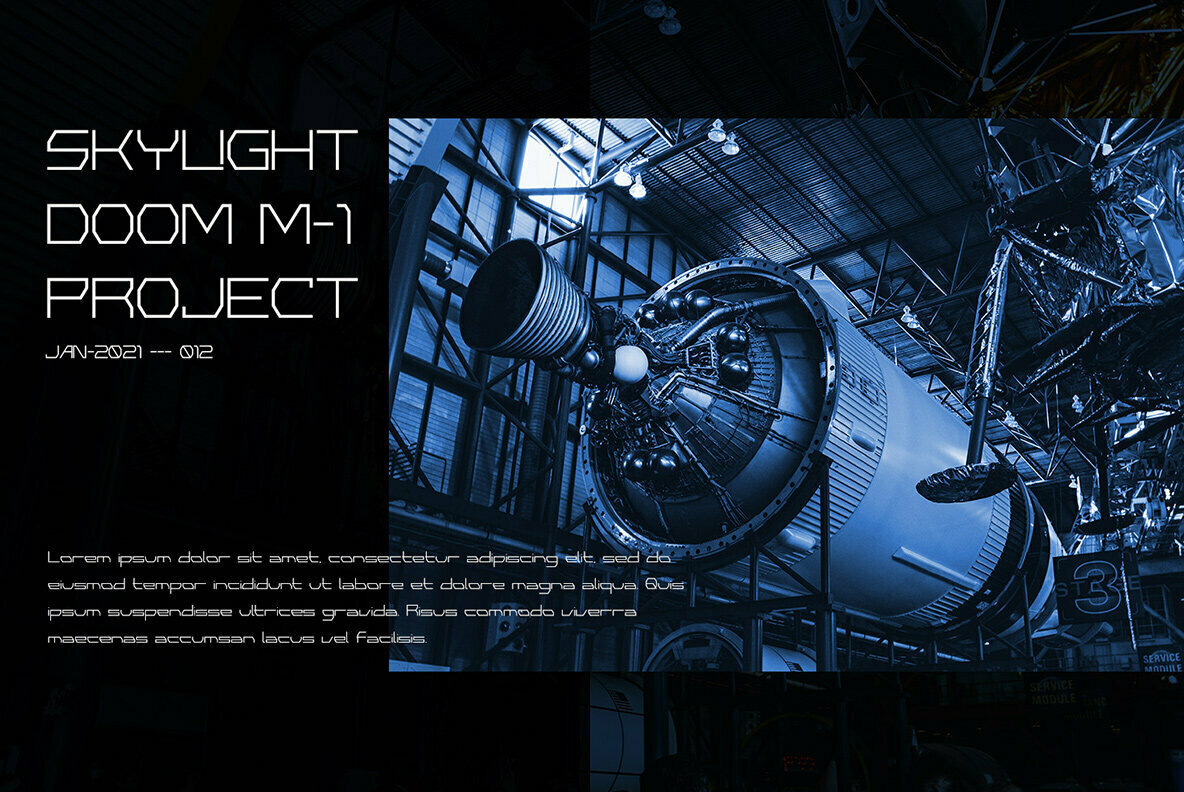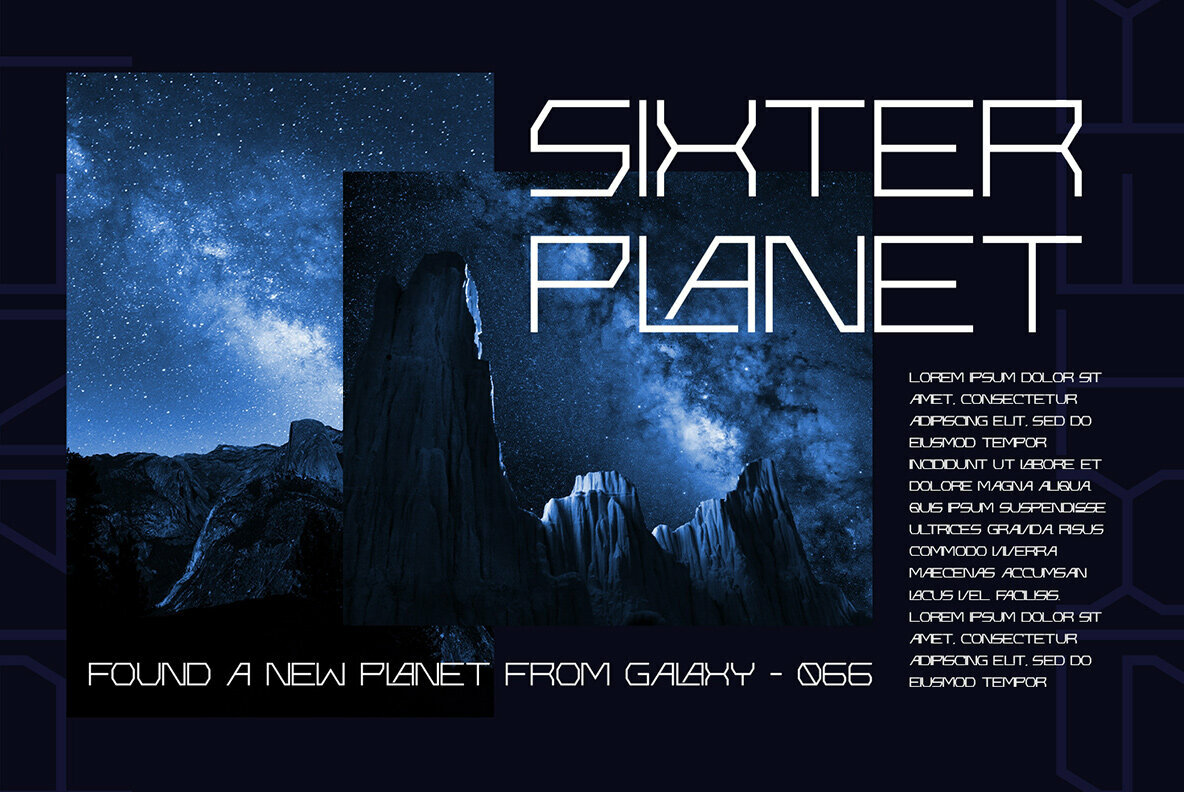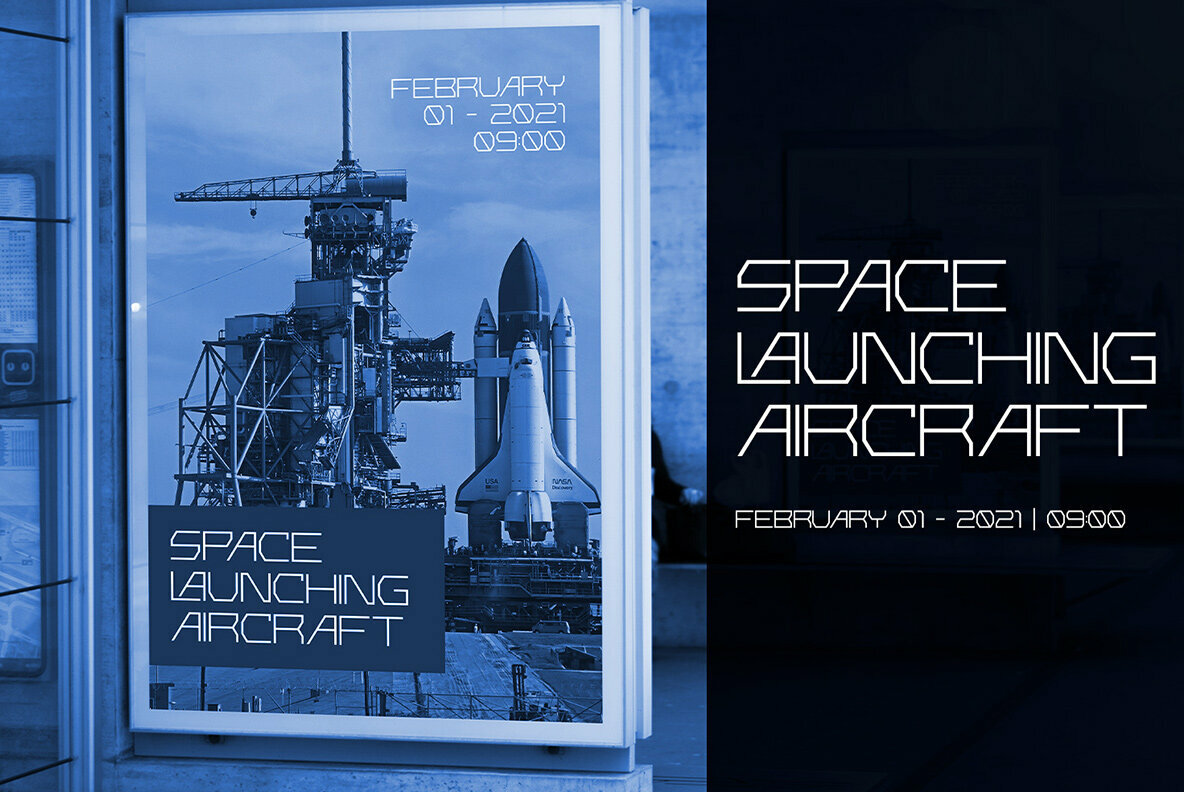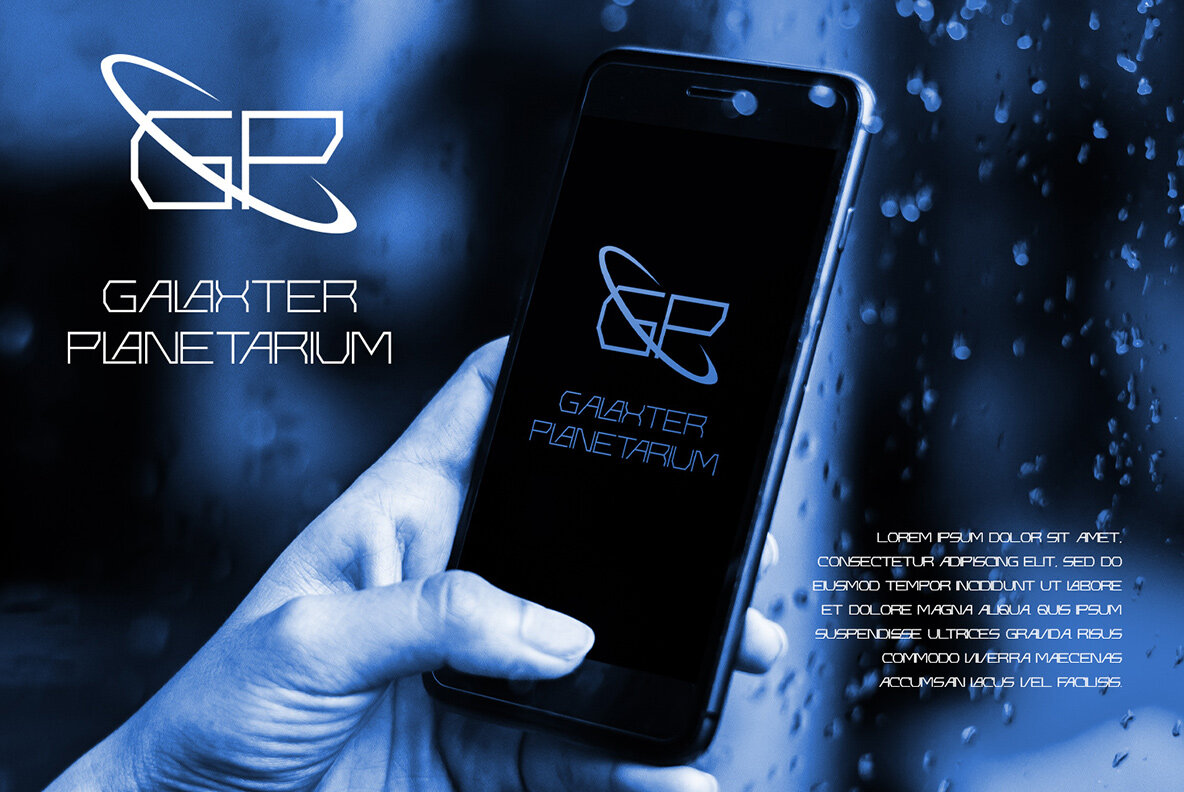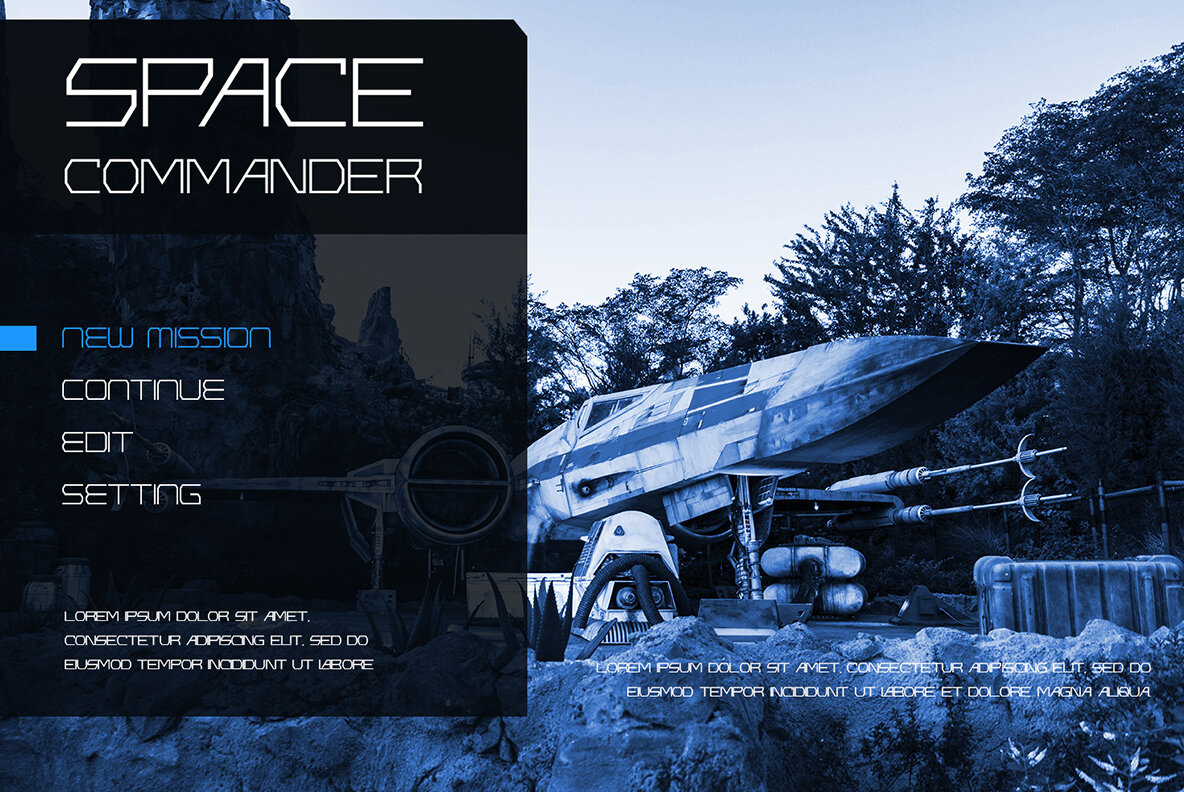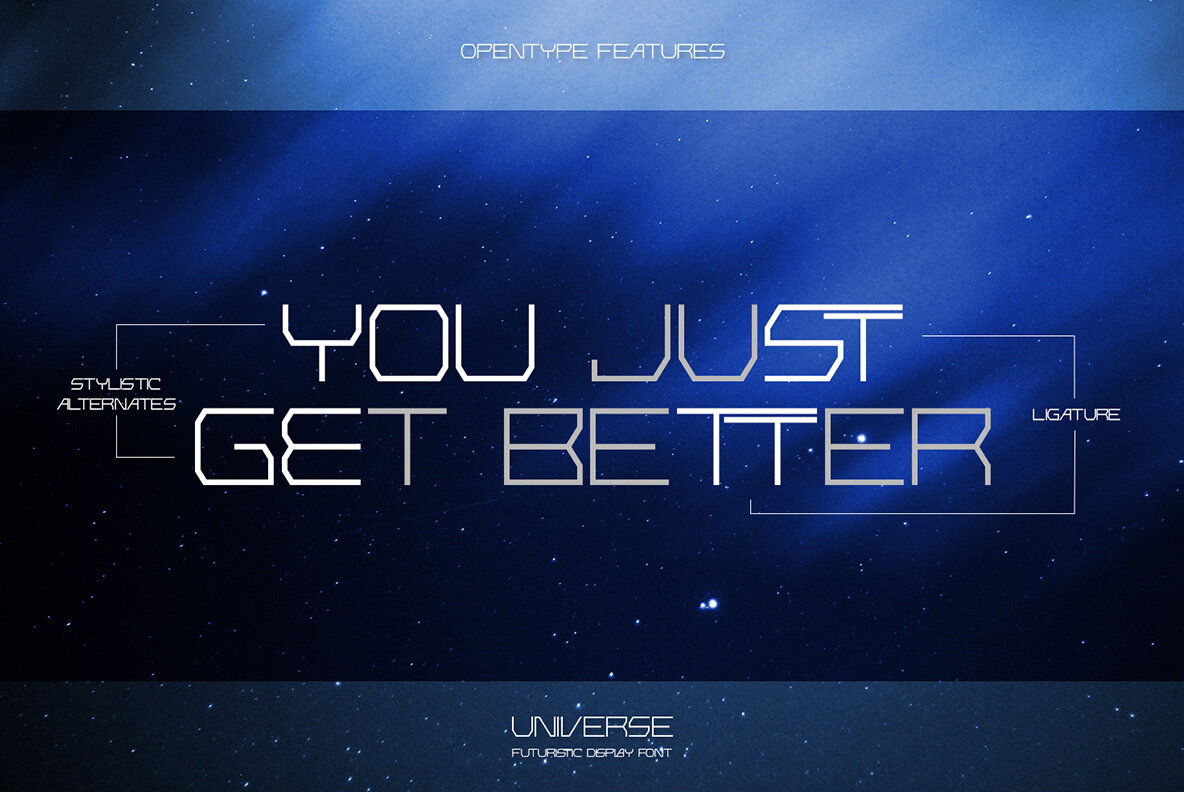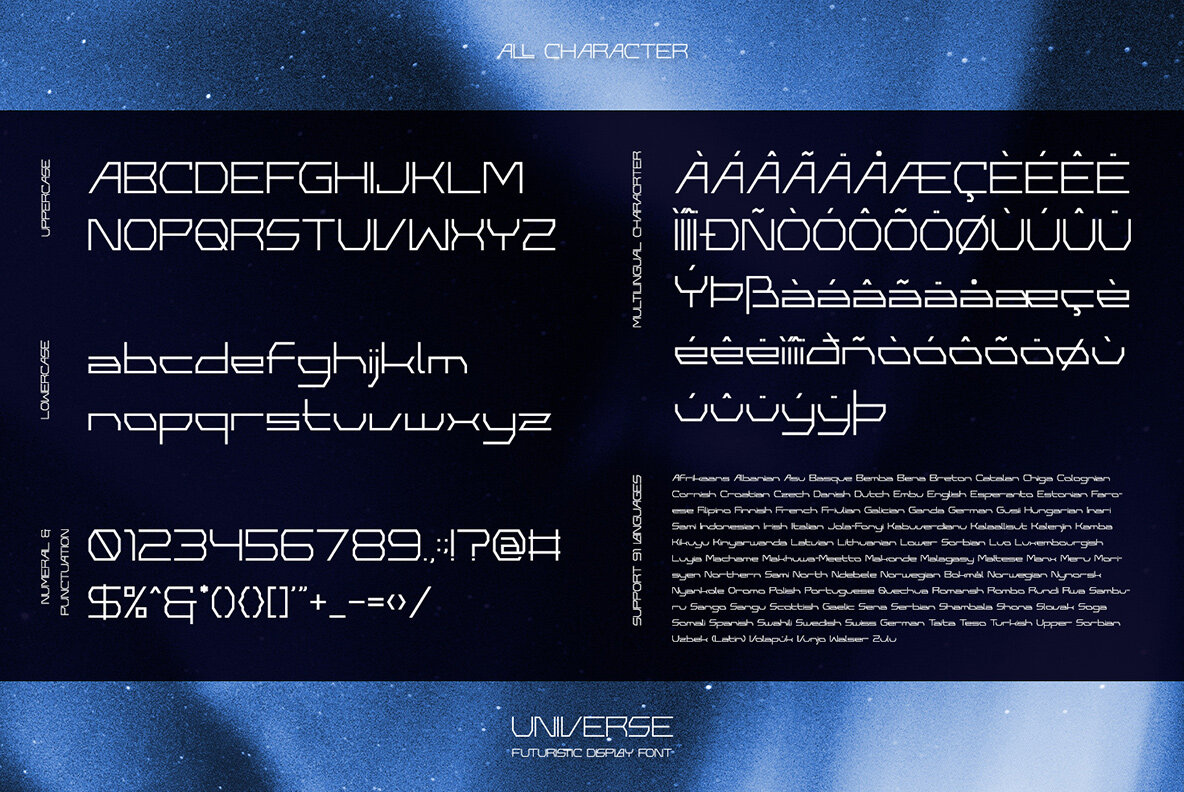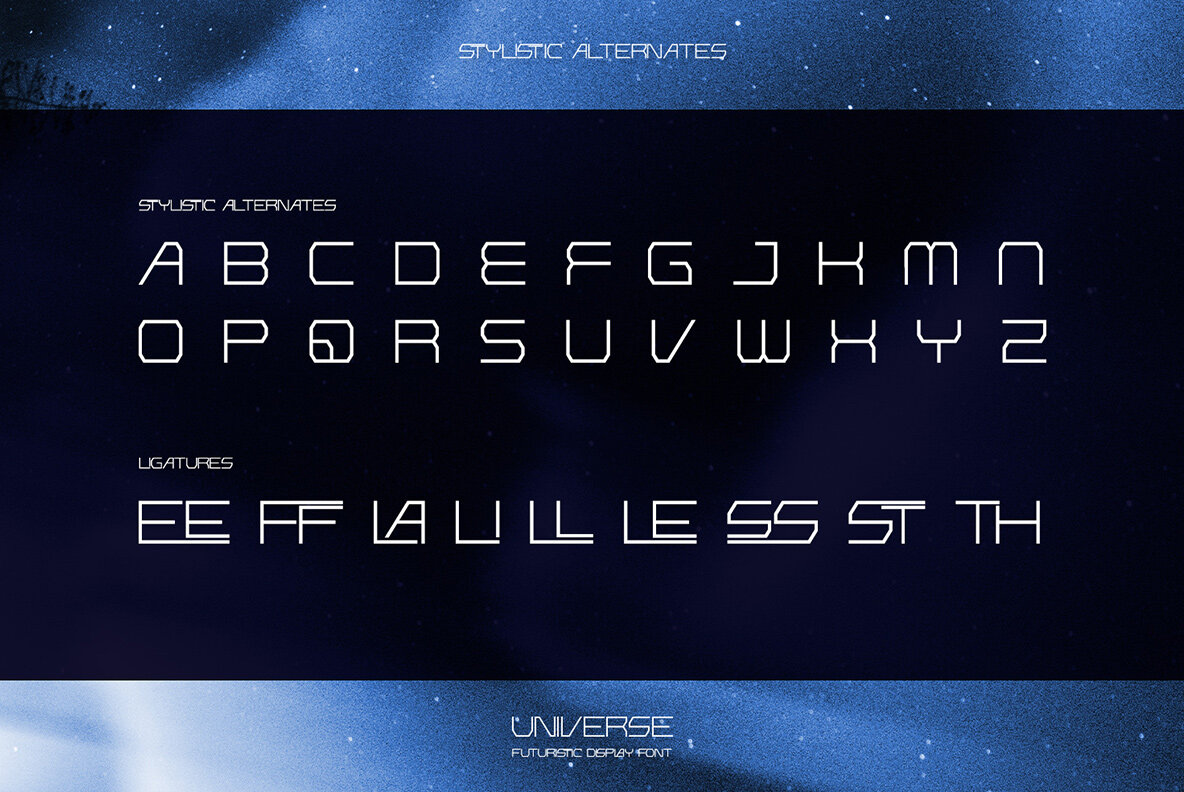
Universe Font
Universe
Universe brings a futuristic flair to your design projects with its captivating display style. This typeface is ideal for enhancing various platforms, including websites, social media branding, Pinterest banners, and printed materials. Its sleek design provides a modern edge that is both visually engaging and versatile enough for numerous applications.Universe: Futuristic Display Font for Diverse Projects
Incorporate the Universe font into your next project for a truly futuristic aesthetic.